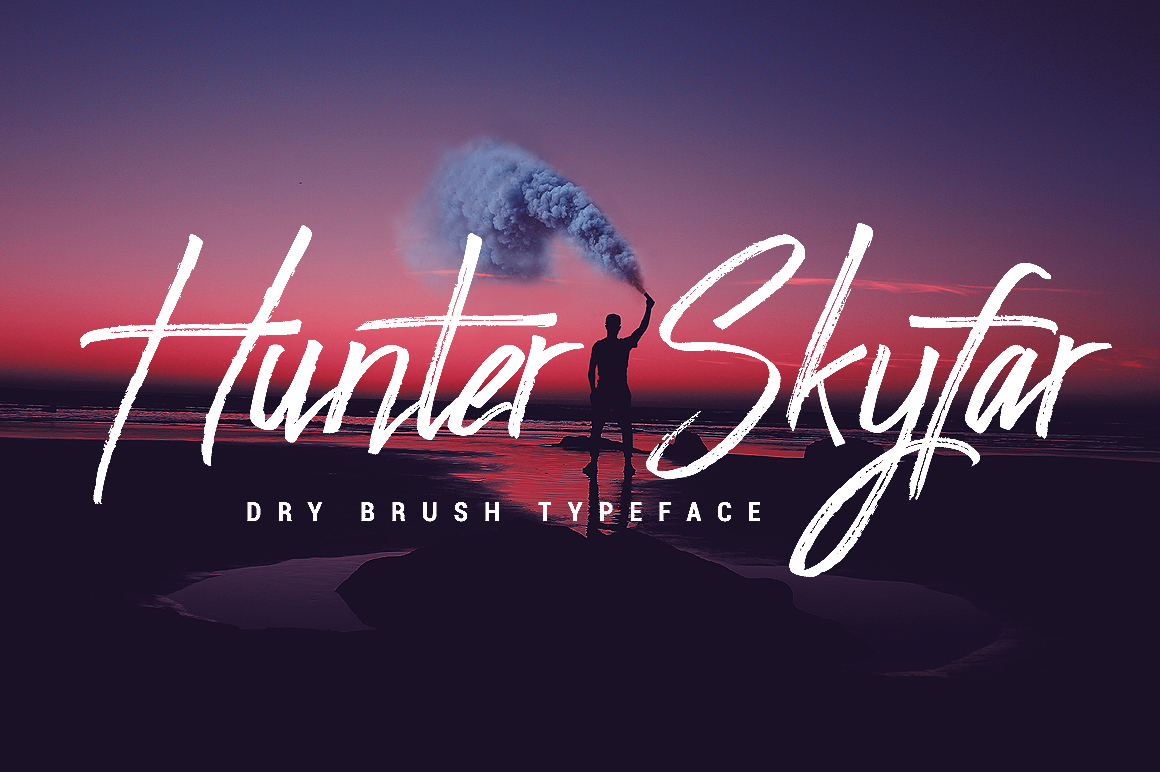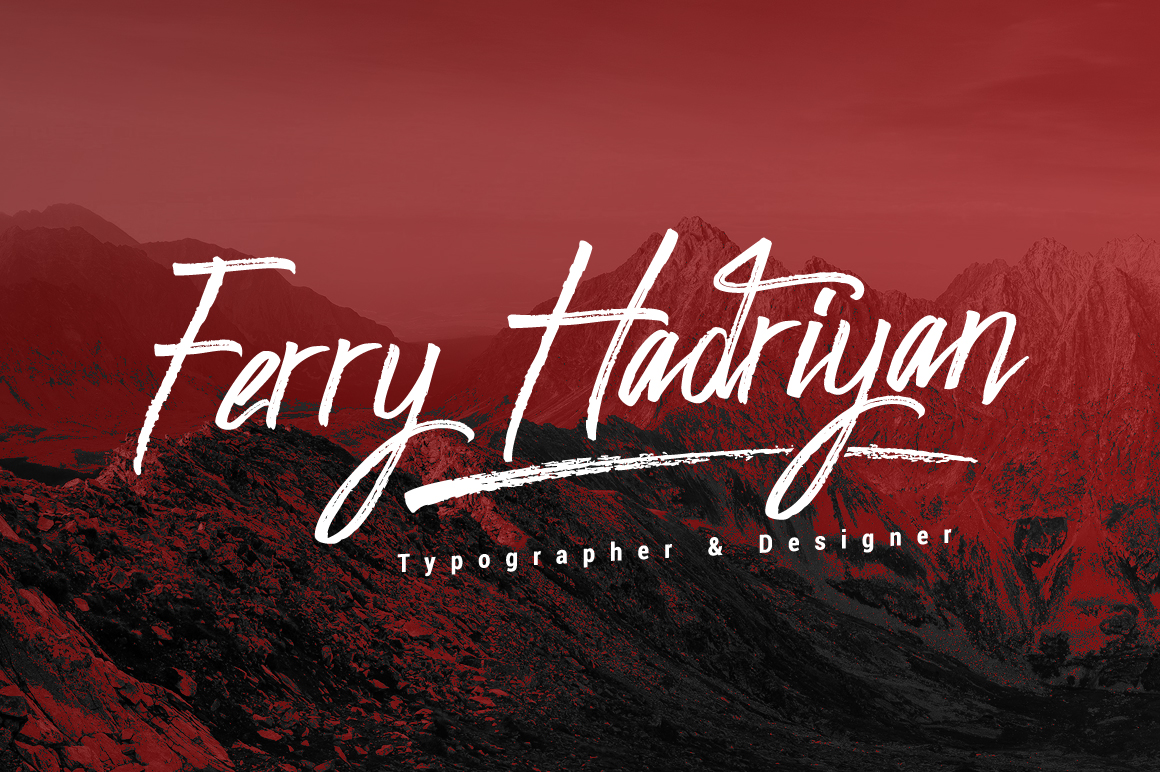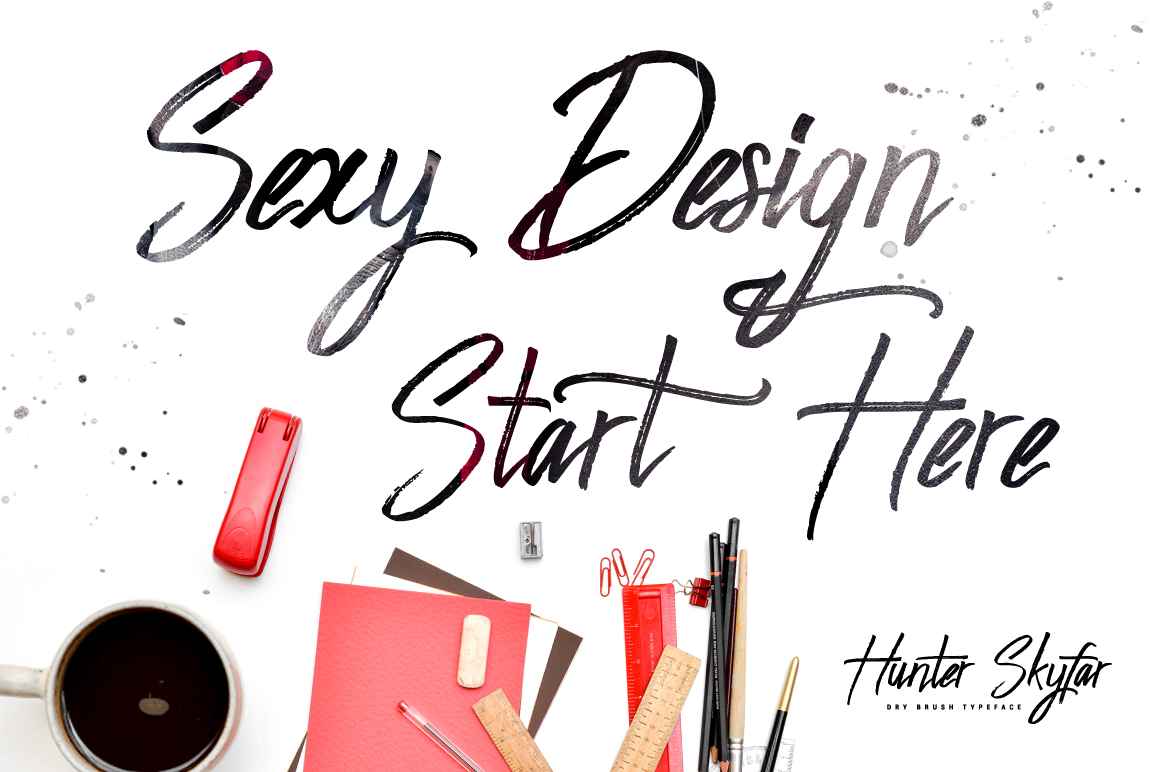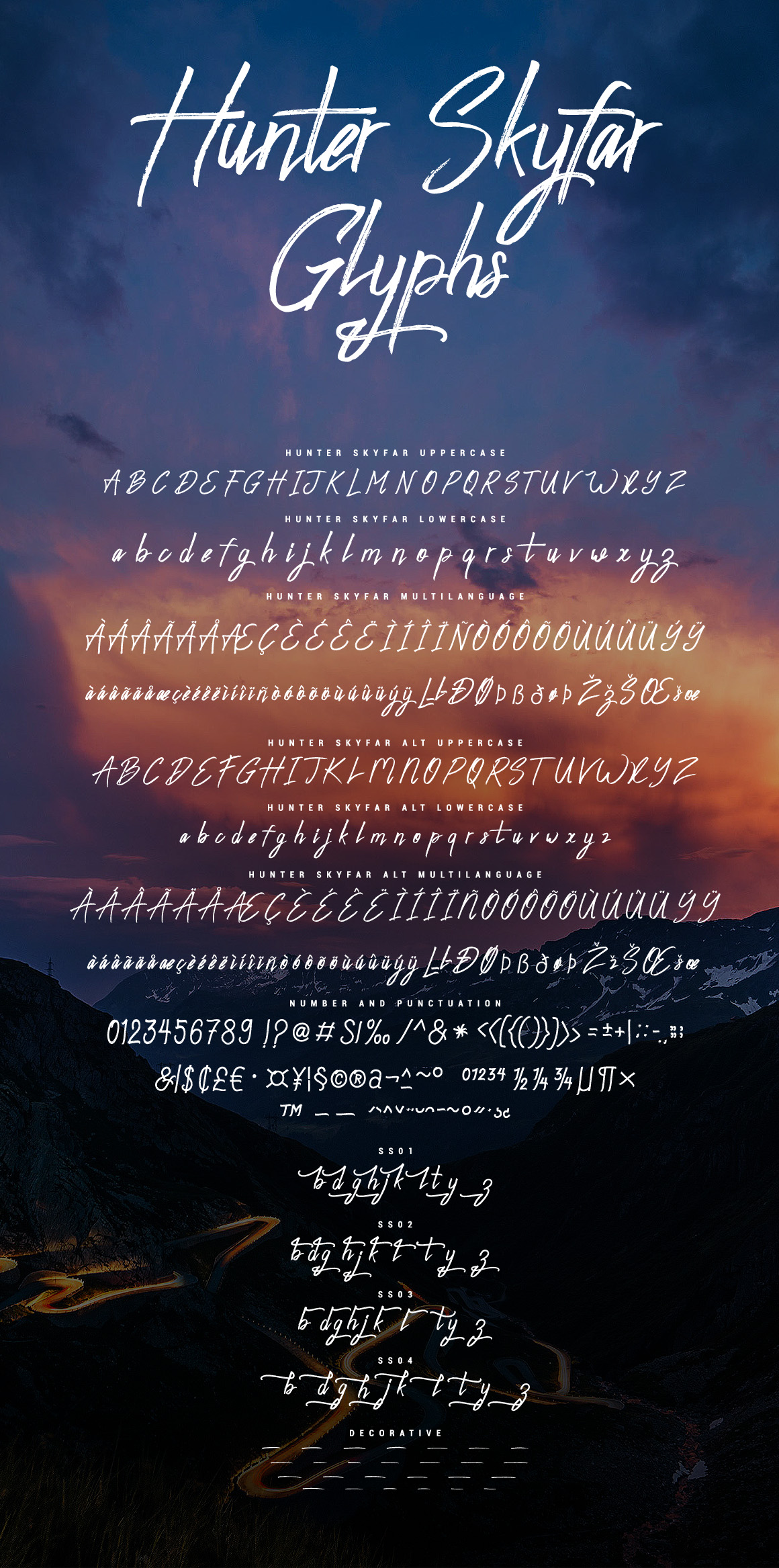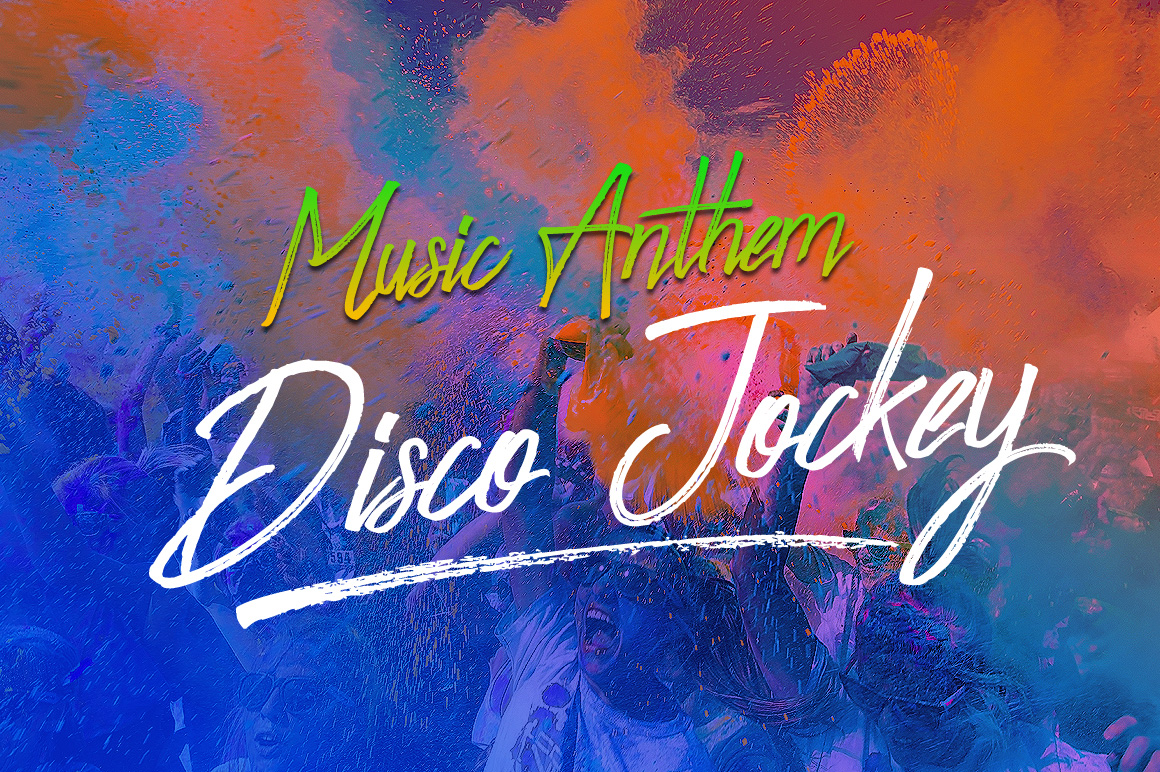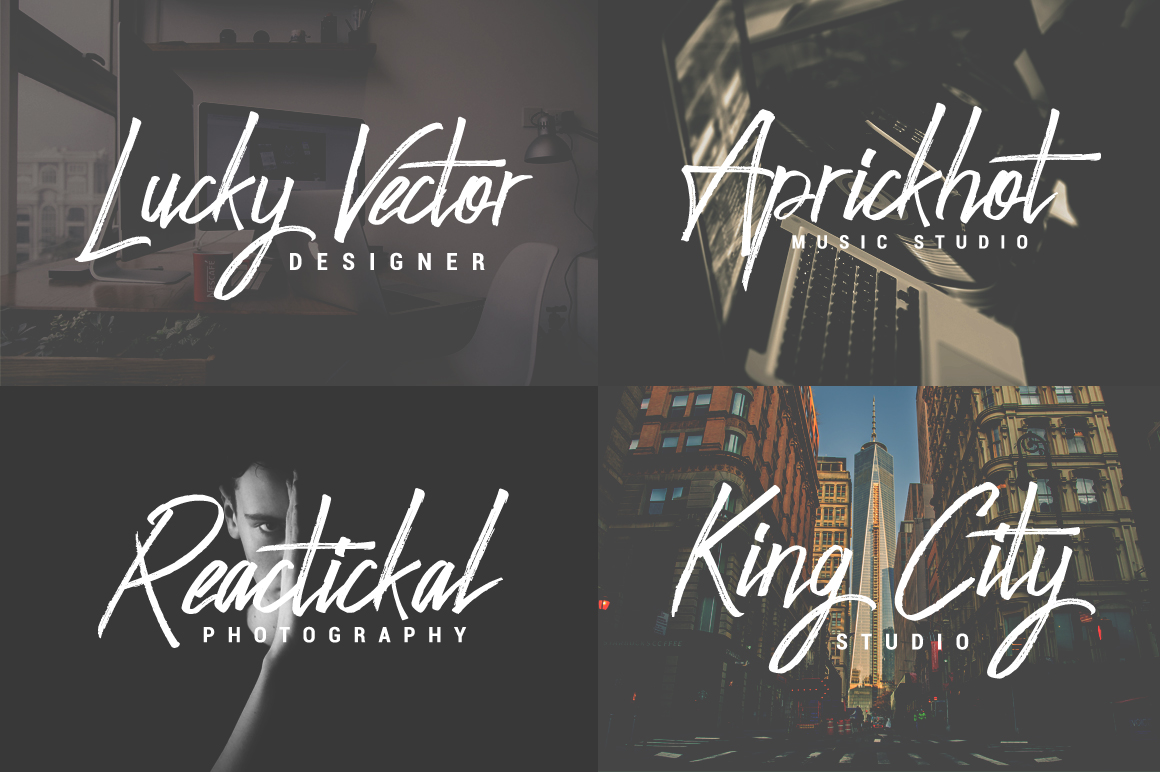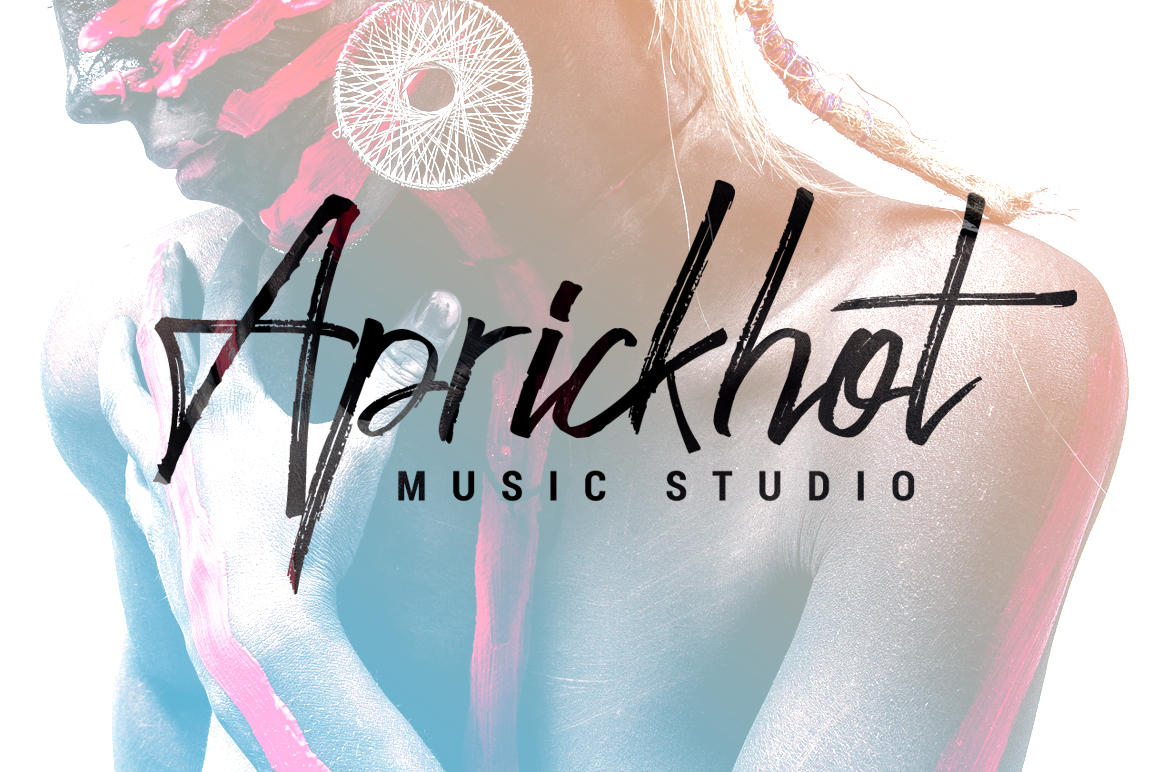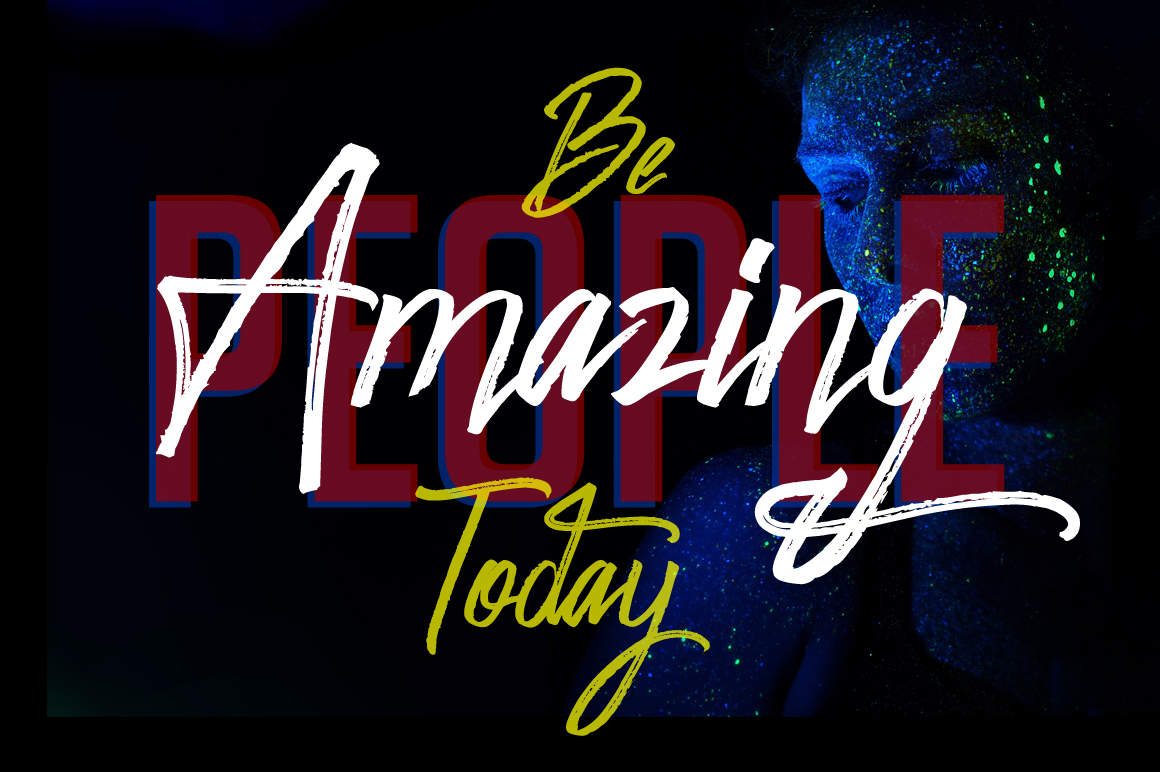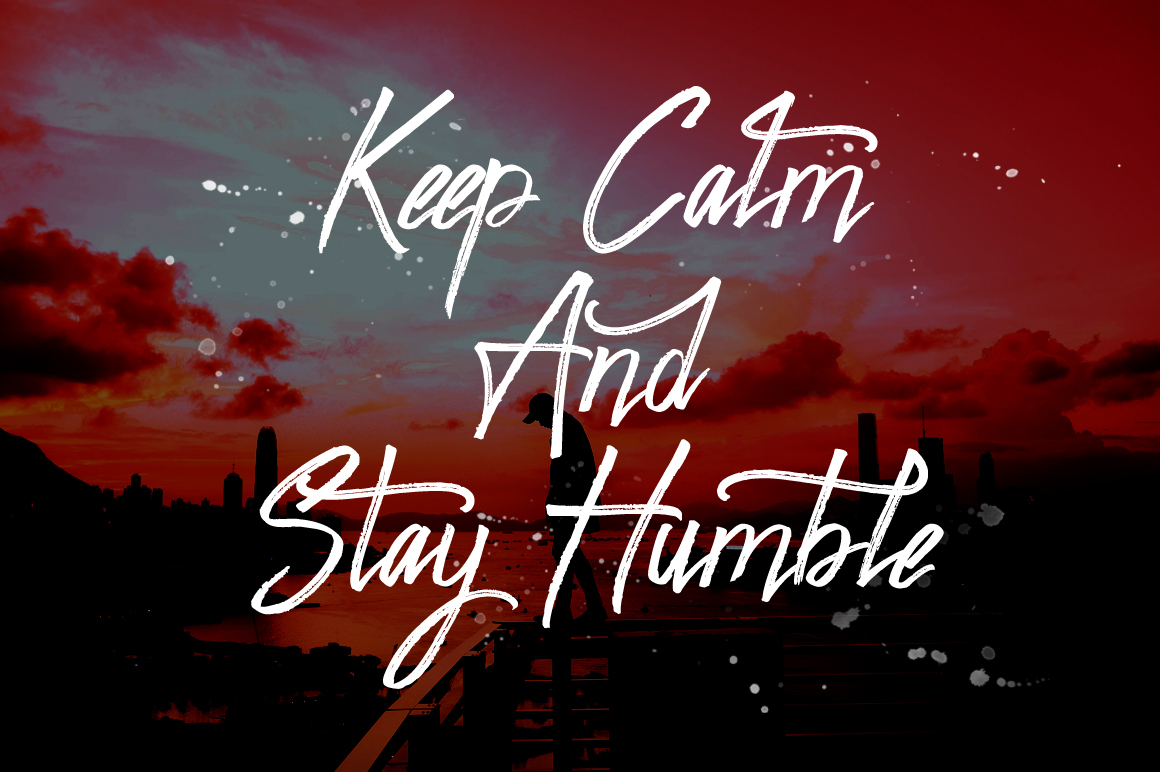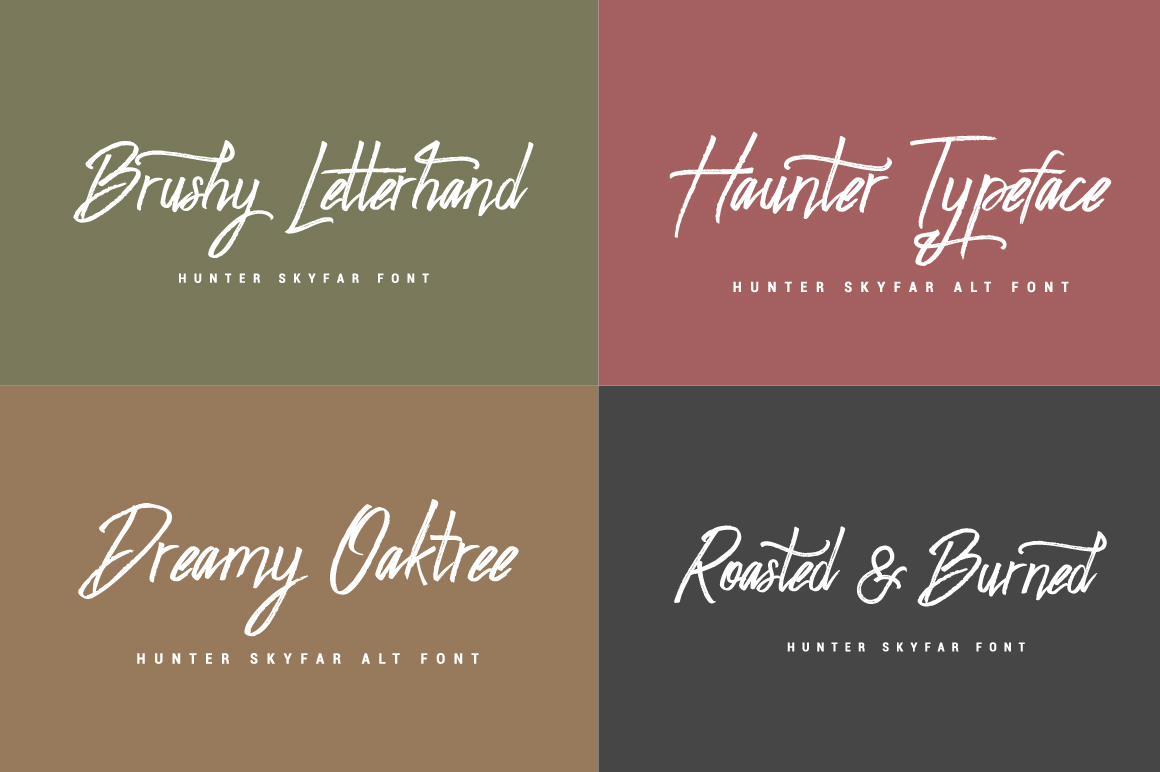
Hunter Skyfar Font
About Hunter Skyfar Font
Hunter Skyfar is a gorgeous script font; this dry brush stroke font is a great way to give your designs a textured and vibrant feel, and looks great in apparel and in headlines.